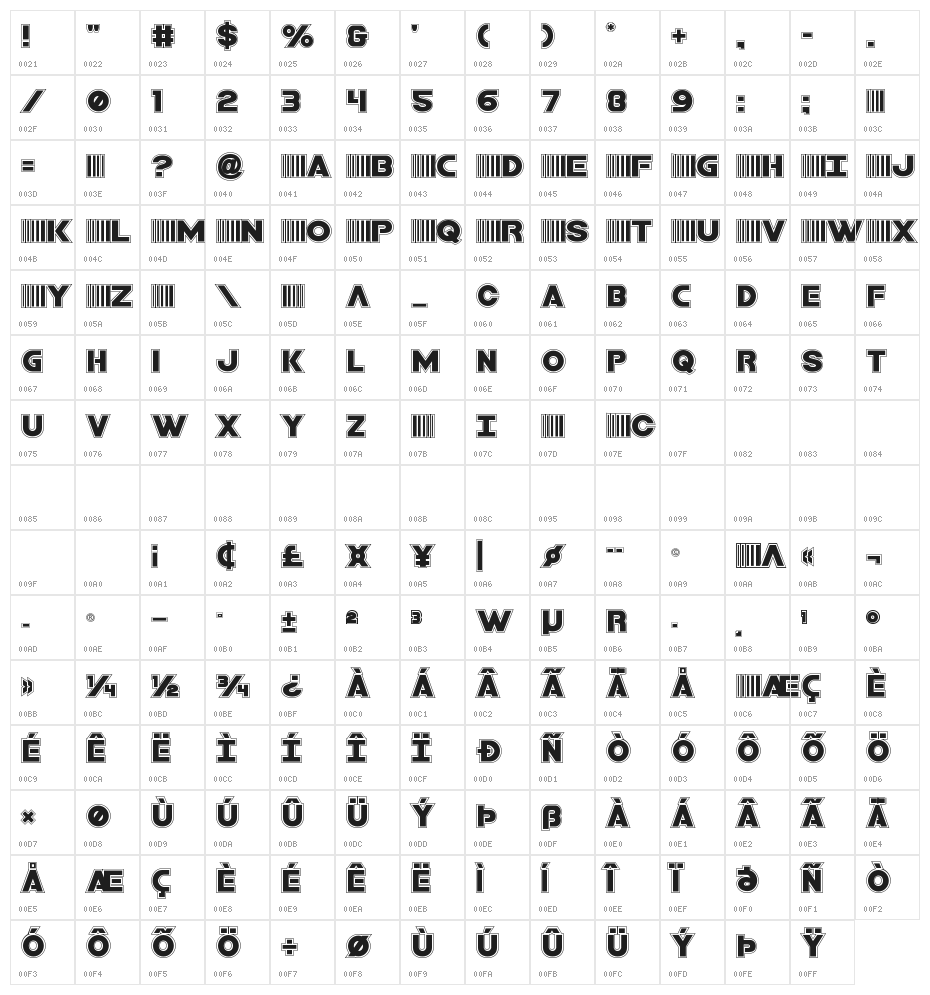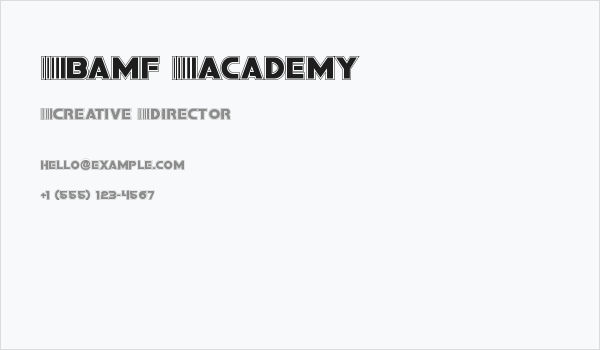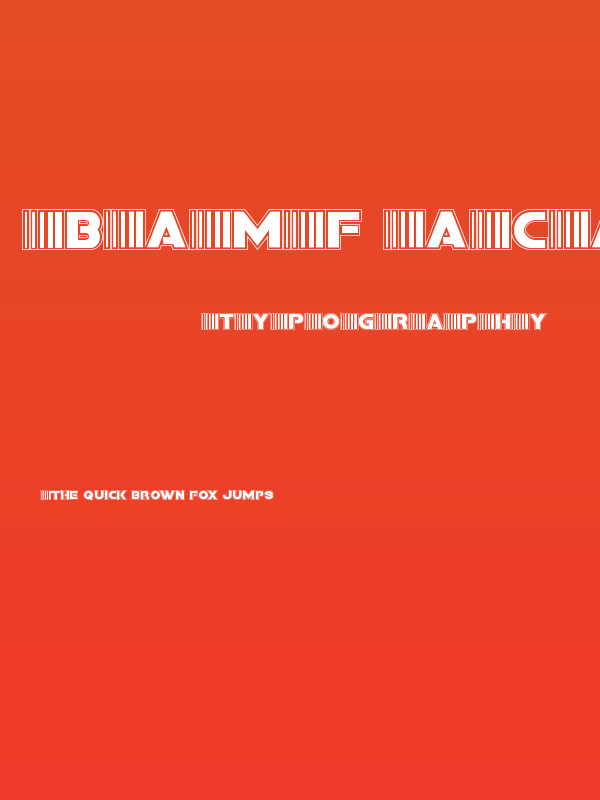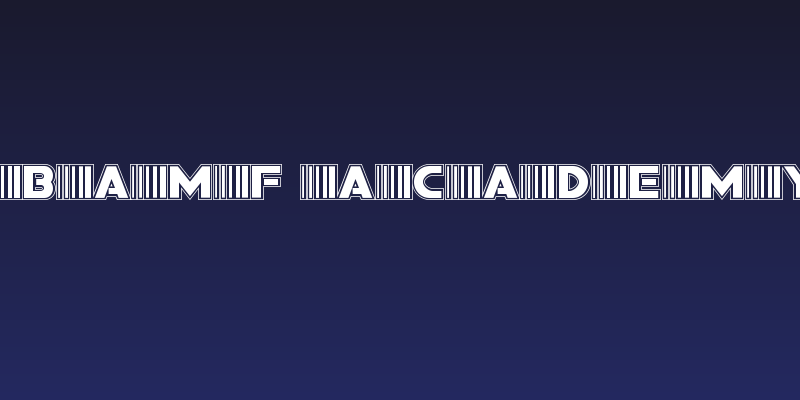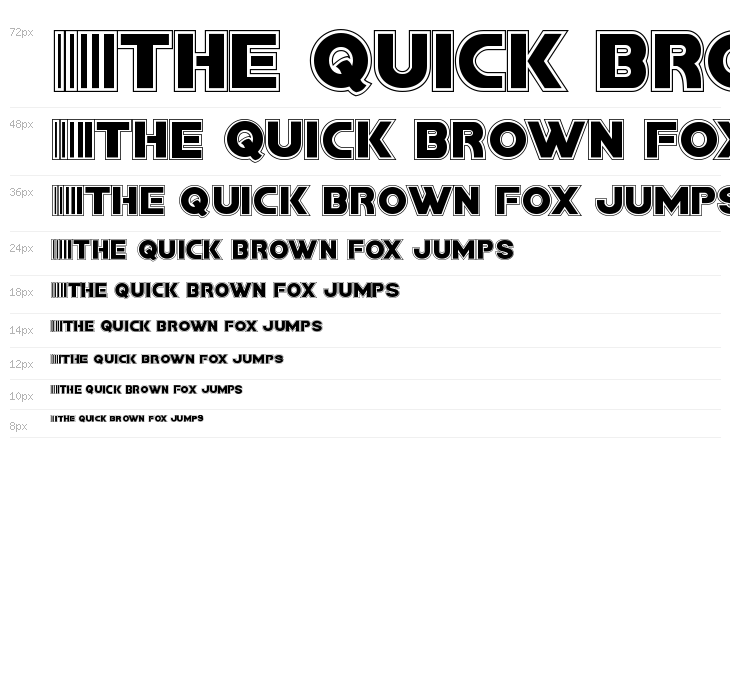
Bamf Academy Font
Bamf Academy Description
This font features a bold and striking design with a strong geometric influence. The uppercase letters are characterized by thick, uniform strokes and a solid, block-like appearance, making them highly legible and impactful. The numbers and special characters maintain this bold style, ensuring consistency across all glyphs. The font's design is modern and assertive, suitable for making a statement in any project. Its clean lines and lack of serifs contribute to a contemporary aesthetic, while the boldness of the characters adds a sense of authority and presence.
| Proposed Projects | Ideal for branding, headlines, posters, and any project requiring a strong visual impact. |